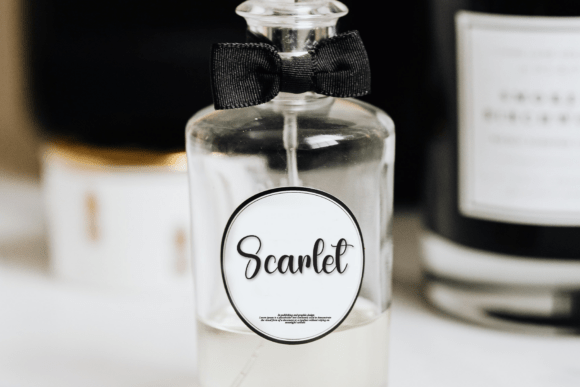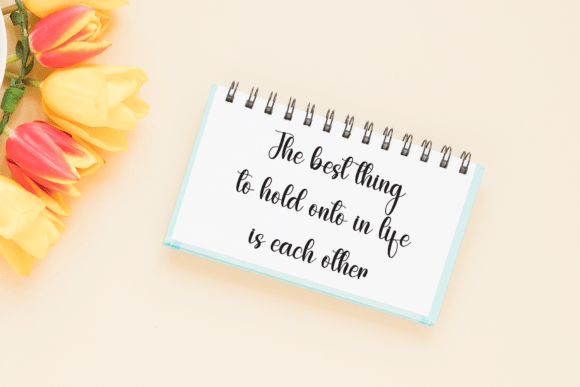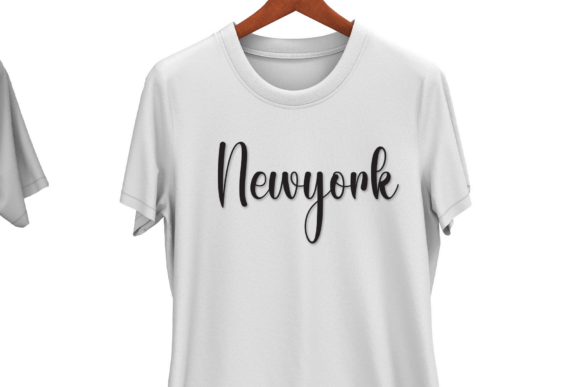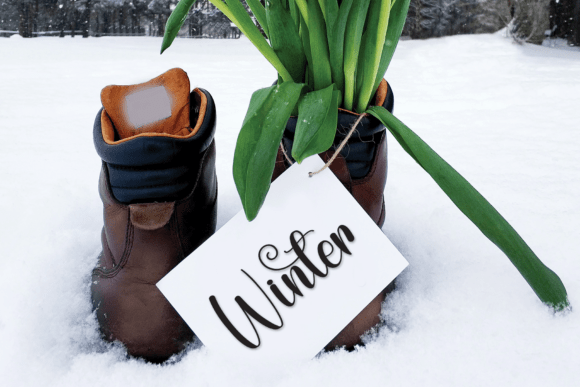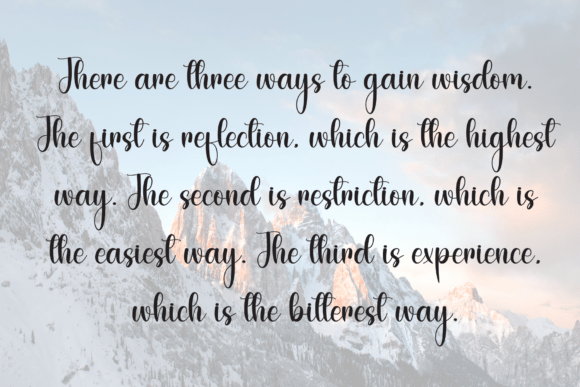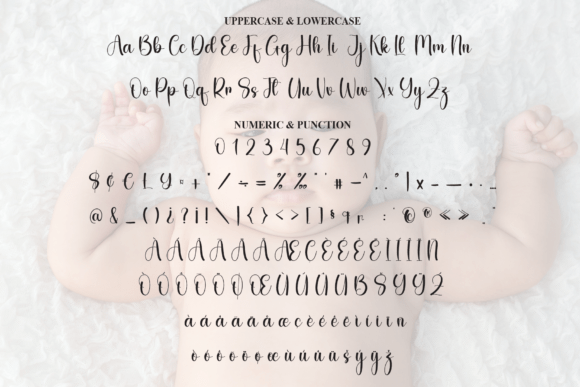
Introducing Chubby Font: Elevate Your Designs with Elegance and Sophistication
In the world of typography, fonts play a crucial role in conveying the tone and personality of a design. For designers and crafters seeking to add a touch of elegance and modern charm to their projects, Chubby Font is an exceptional choice. This stylish script font is designed to bring a sense of refinement and sophistication to various design applications, from logos and invitations to packaging and social media graphics.
The Beauty of Chubby Font
Chubby Font boasts graceful strokes, fluid curves, and meticulously crafted letterforms that capture the essence of hand-drawn calligraphy with a contemporary twist. The font’s natural flow and polished details make it an excellent choice for designers looking to add a touch of luxury and glamour to their work. Whether you’re creating a logo, invitation, or social media graphic, Chubby Font delivers both versatility and visual appeal.
Key Features of Chubby Font
- Elegant and Modern Design: Chubby Font features a stylish and contemporary design that exudes elegance and sophistication.
- Graceful Strokes and Fluid Curves: The font’s carefully crafted letterforms and fluid curves create a natural flow that adds a refined touch to any design.
- Versatility: Chubby Font is ideal for various design applications, including logos, invitations, packaging, and social media graphics.
- Hand-Drawn Calligraphy Inspiration: The font captures the beauty of hand-drawn calligraphy with a modern twist, making it perfect for designers seeking a unique and elegant typography solution.
Design Applications for Chubby Font
Chubby Font’s versatility makes it an excellent choice for a wide range of design applications. Here are some ideas to get you started:
- Logos: Create a lasting impression with a custom logo that showcases your brand’s personality and style.
- Invitations: Add a touch of elegance to your invitations, whether it’s for a wedding, birthday party, or corporate event.
- Packaging: Elevate your product packaging with a sophisticated and eye-catching design that stands out on store shelves.
- Social Media Graphics: Create engaging social media graphics that reflect your brand’s personality and style.
Why Choose Chubby Font?
With so many fonts available, why choose Chubby Font? Here are a few reasons why designers and crafters love this stylish script font:
- Unique and Elegant Design: Chubby Font offers a distinctive and sophisticated design that sets it apart from other fonts.
- High-Quality Typography: The font’s carefully crafted letterforms and polished details ensure a high-quality typography experience.
- Easy to Read and Versatile: Chubby Font is easy to read and versatile, making it perfect for various design applications.
In conclusion, Chubby Font is an exceptional choice for designers and crafters seeking to add a touch of elegance and sophistication to their designs. With its stylish and modern design, graceful strokes, and fluid curves, this font delivers both versatility and visual appeal. Whether you’re creating a logo, invitation, packaging, or social media graphic, Chubby Font is sure to elevate your design and leave a lasting impression.